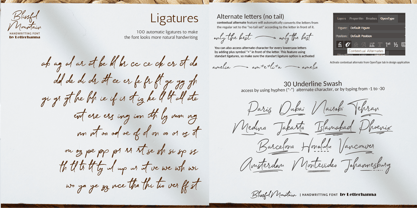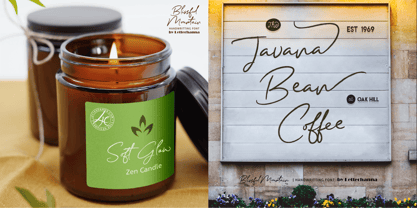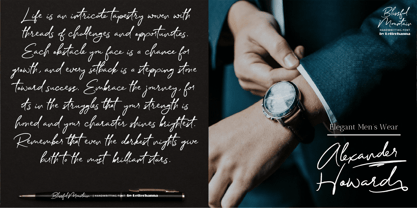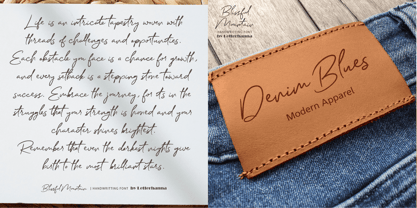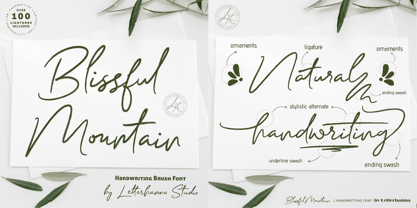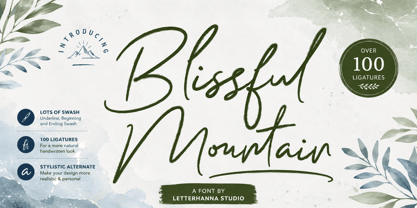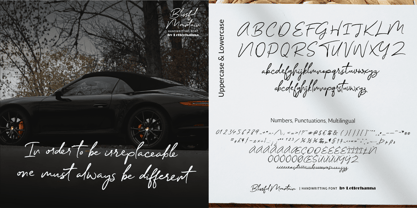
Blissful Mountain
by Letterhanna Studio
The Blissful Mountain Font Family was designed by Rinaldo Hasibuan and published by Letterhanna Studio. Blissful Mountain contains 1 styles. More about this family
Meet Blissful Mountain 🌿 a handwriting brushtype font with over 100 ligatures for that real, hand-lettered feel. Bold brush strokes, elegant loops, and an organic, nature-inspired vibe — perfect for weddings, branding, packaging, and stationery. If you love brush script fonts with authentic character, this one's for you. Grab it now and give your designs a handwritten soul. 🖋️
Designers: Rinaldo Hasibuan
Foundry: Letterhanna Studio